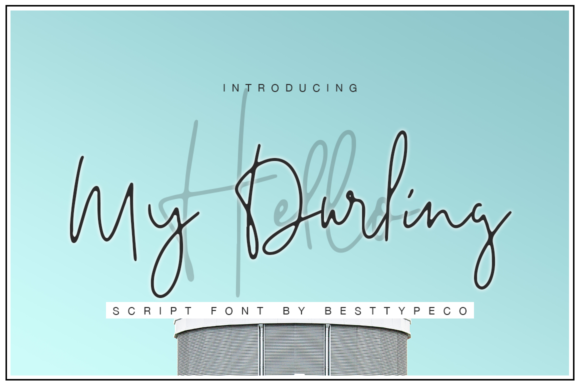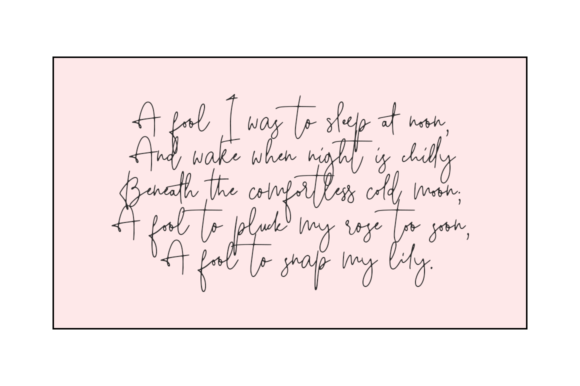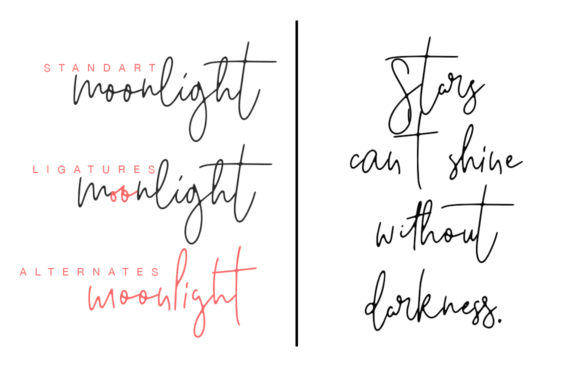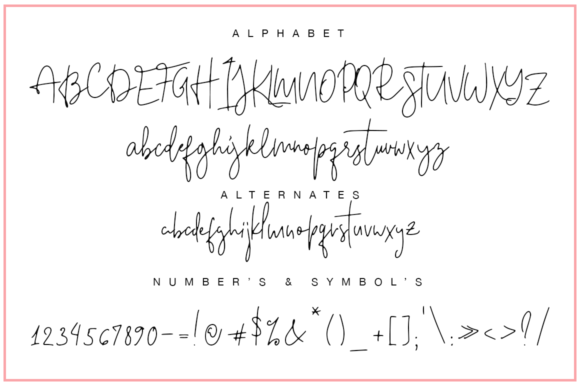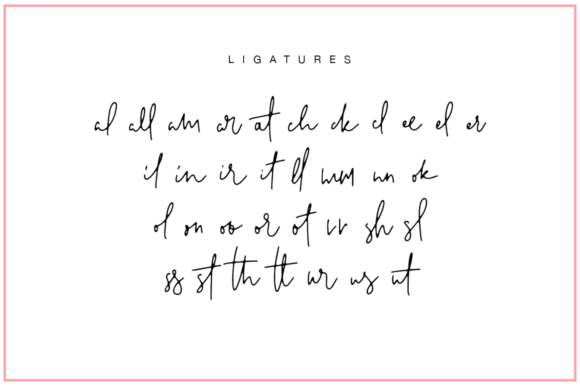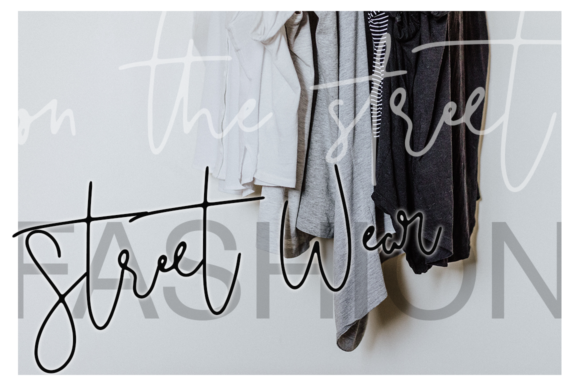
Hello My Darling Font
Hello My Darling is a simple, flowing and delicate handwritten font. It is PUA encoded which means you can access all of the glyphs and swashes with ease! Fall in love with its incredibly versatile style and use it to create spectacular designs!